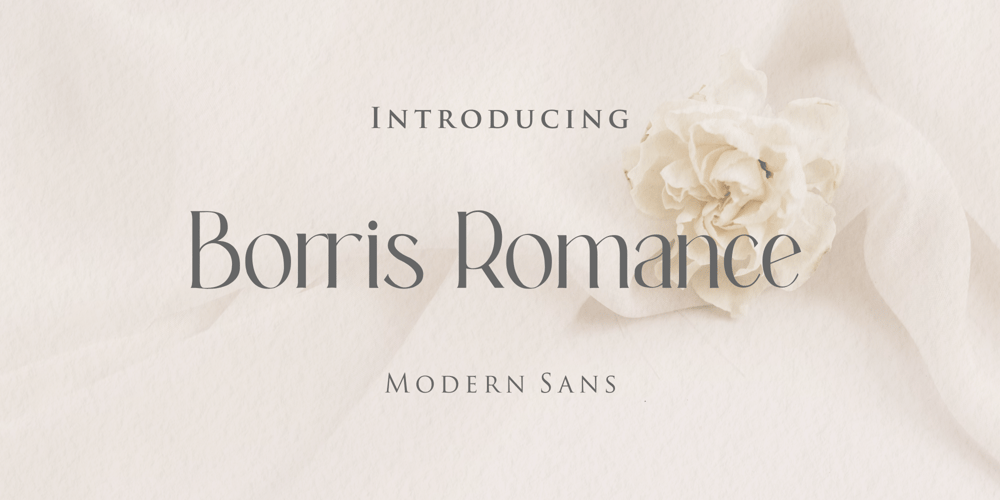
Borris Romance Font Family was designed by Zamjump and published by Zamjump. Borris Romance contains 1 styles and family package options. Borris Romance a modern sans with simple, clean, and elegance, inspired by the cooperplate pen with tail. Specially designed for elegant-themed projects, perfectly suitable for creating simple, clean, lifestyle design such as logos, title, and magazine and more. The font features standard ligatures.